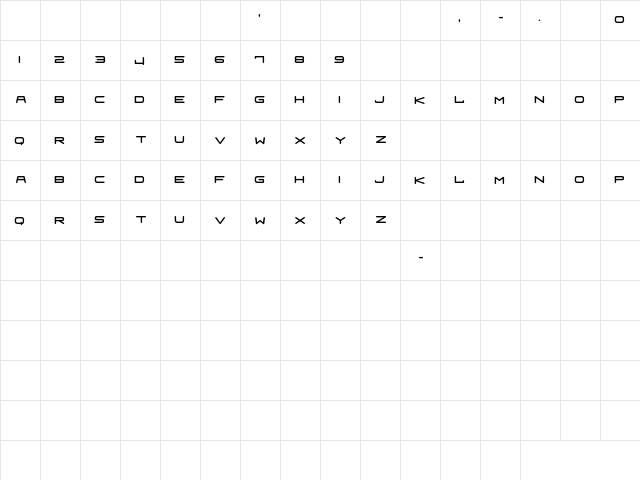
Fraulein Regular
Design Context for Fraulein Typeface
Fraulein offers clean, dependable letterforms without strong stylistic allegiance, making it a practical choice for designers who need flexibility.